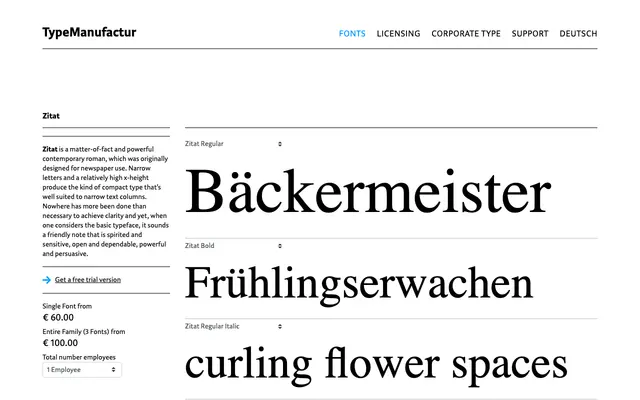
A compact three-style text serif from Typemanufactur, offered in Regular, Regular Italic and Bold.
A modest text serif with Regular, Italic and Bold cuts, suited to body copy and editorial work. The specimen text leans on literary sources, suggesting an orientation towards book and long-form typesetting. With only three styles on offer, the family is narrow in scope but legible in intent.
The letterforms visible in the specimen suggest a transitional serif with moderate contrast and upright stress, suited to text setting in both roman and italic cuts.